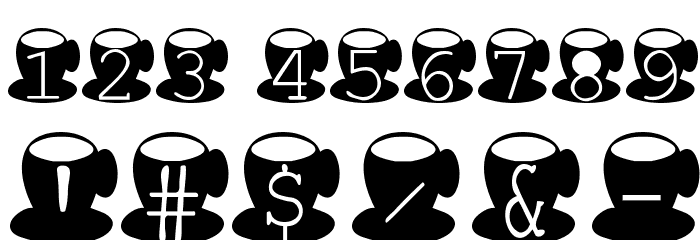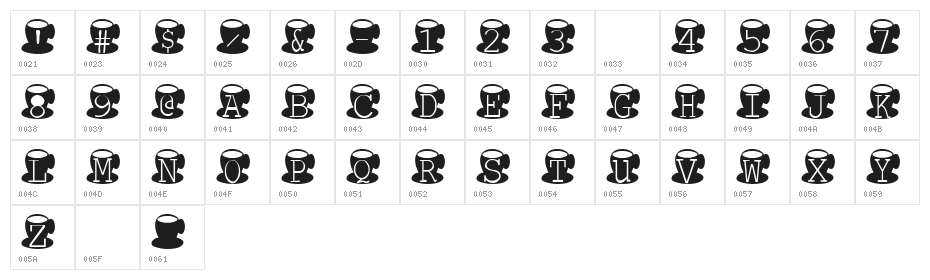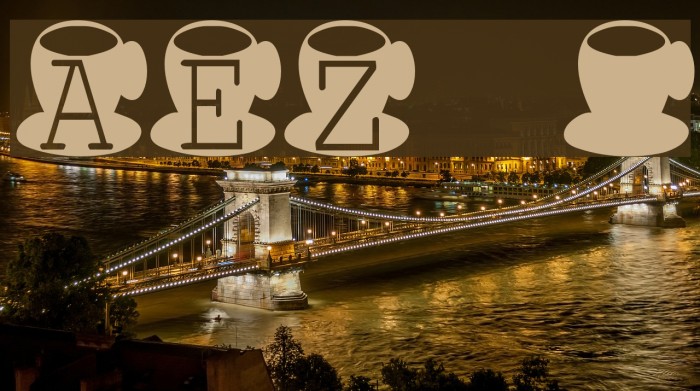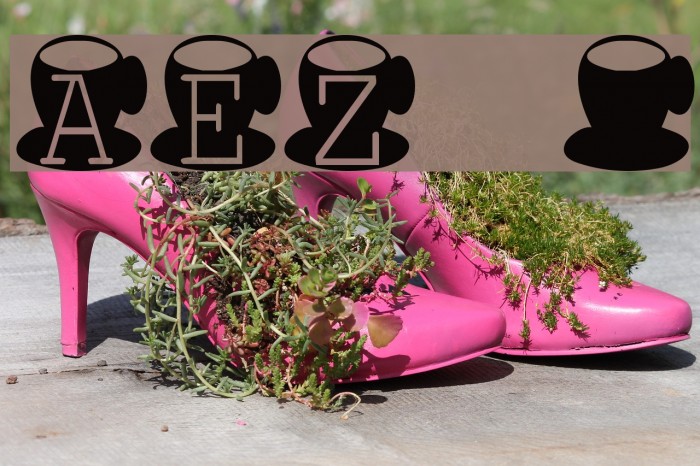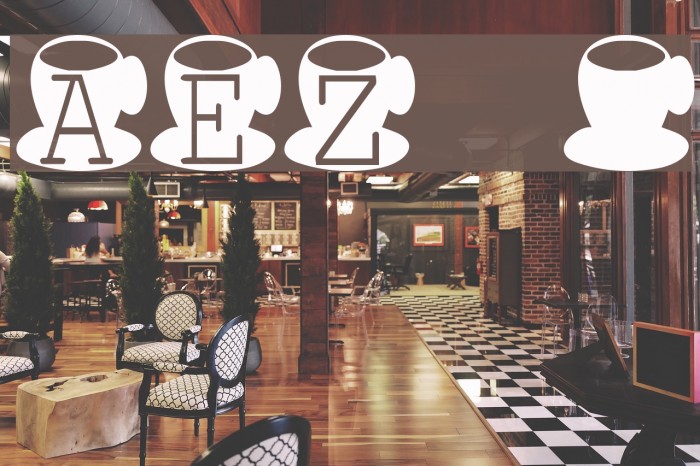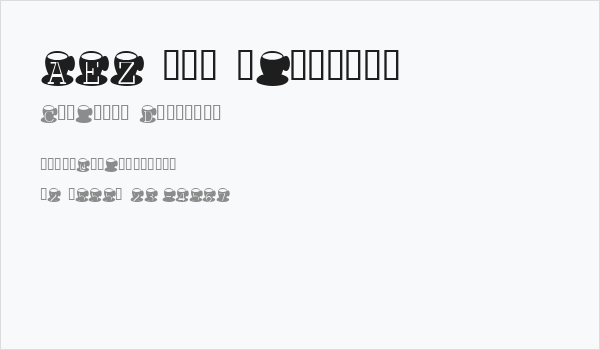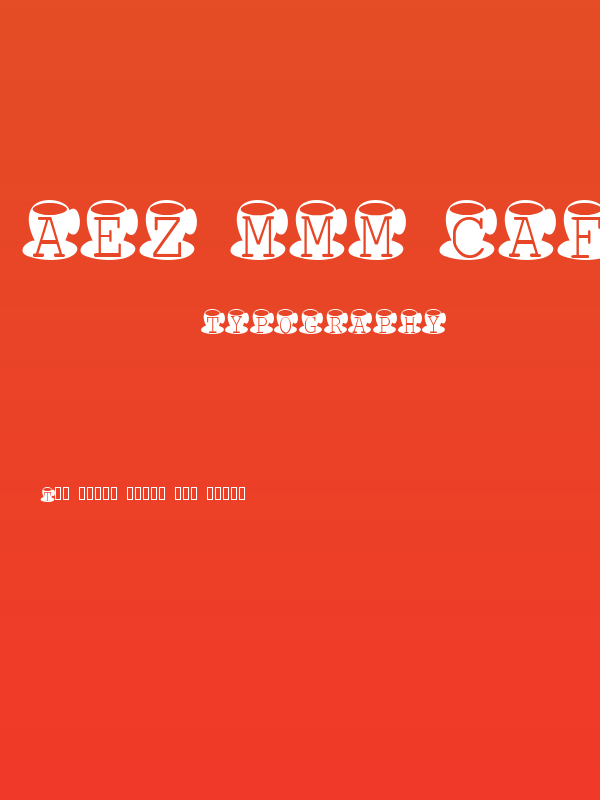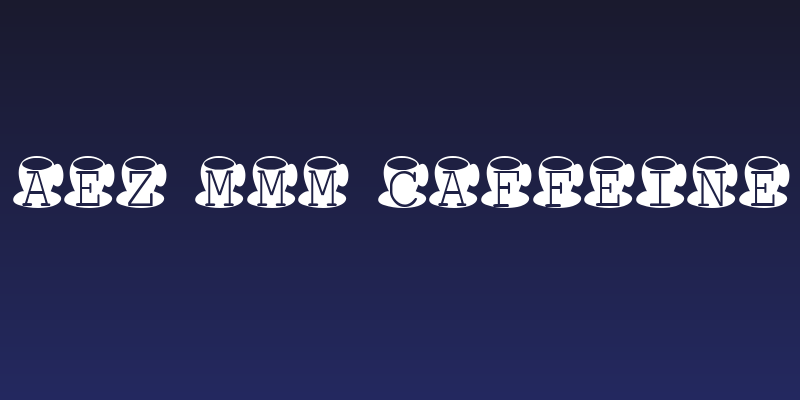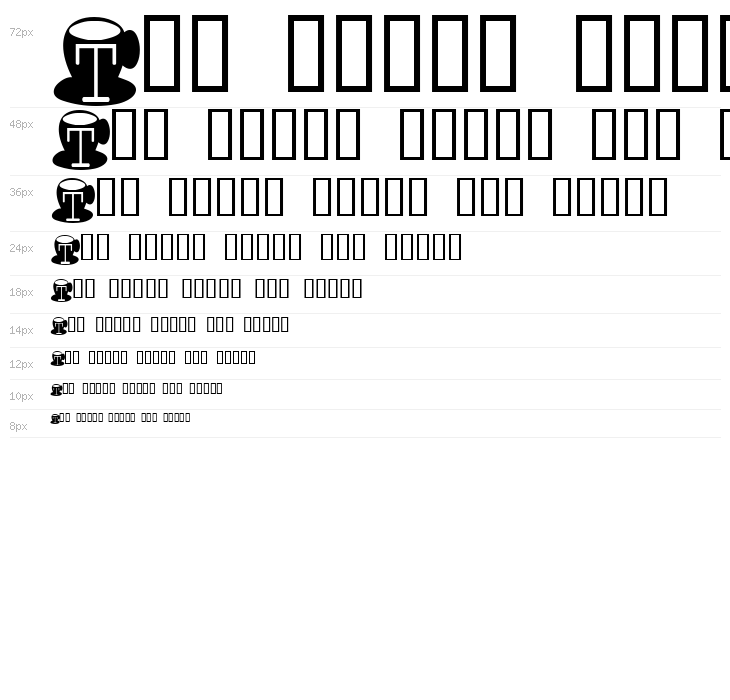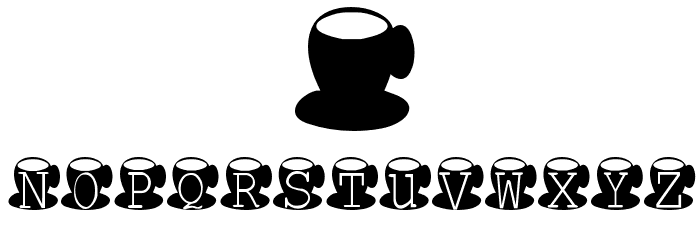
AEZ mmm caffeine Font
AEZ mmm caffeine Description
This playful and unique font features characters enclosed within coffee cup silhouettes, creating a whimsical and thematic design. The letters and numbers are bold and clear, with a consistent style that maintains legibility despite the decorative elements. The coffee cup motif adds a fun and distinctive touch, making it ideal for projects that seek to convey a sense of warmth, coziness, or a coffee-related theme. The font's design is consistent across uppercase, lowercase, numbers, and special characters, ensuring a cohesive look in any text application.
| Use Case | Logos, Headlines, Themed Invitations |
| Proposed Projects | Ideal for cafe branding, coffee shop menus, themed event invitations, and playful merchandise designs. |